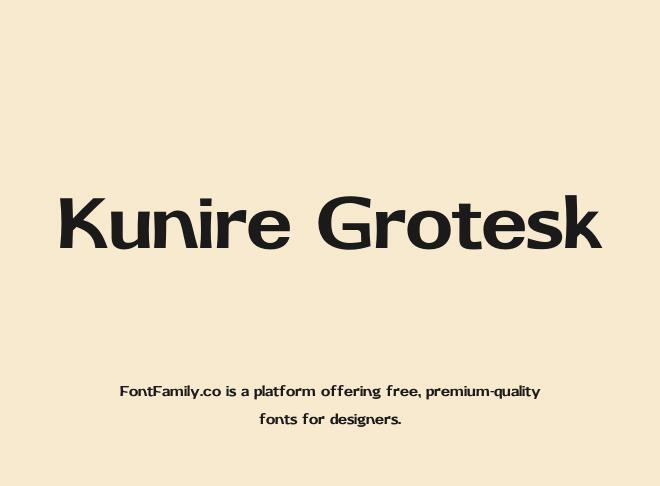
Kunire Grotesk Font
Introducing Kunire Grotesk Font, a modern and geometric typeface from Studio Kunire. This minimalistic yet bold font offers a clean and sleek design, making it an excellent choice for branding, logo design, headlines, and text blocks. Its geometric structure and balanced proportions give it a unique, contemporary feel, reminiscent of popular fonts like Futura and Helvetica. However, Kunire Grotesk stands out with its own distinct character and style. Whether you're creating a modern corporate identity or a minimalist design project, this font will add a professional and stylish touch. Its clear, readable style makes it perfect for both print and digital media. Choose Kunire Grotesk Font to elevate your design aesthetics to the next level.